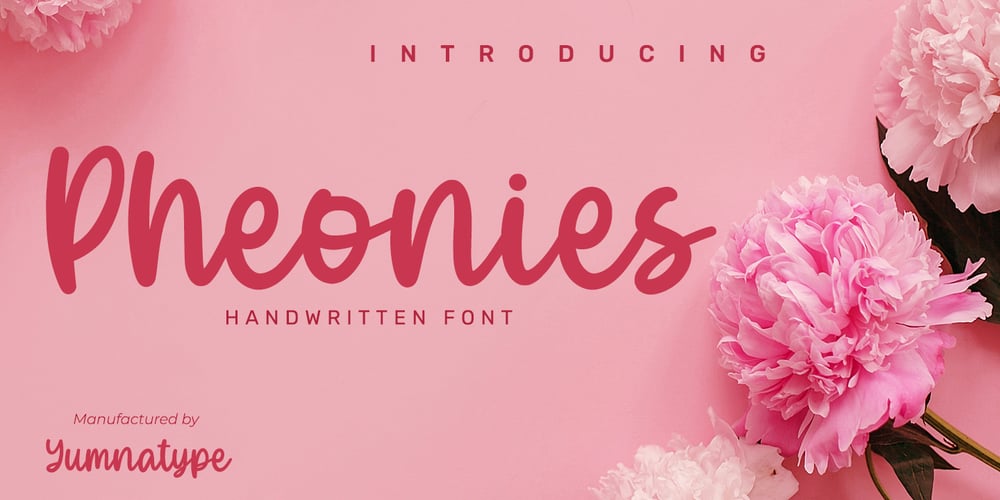
Pheonies Font Family was designed by Donis Miftahudin and published by Yumna Type. Pheonies contains 1 styles and family package options. Pheonies is a handwritten font with a natural and unique design will make your project more beautiful. The font is suitable for your branding project, printing, logos dan wedding.Included:Pheonies (OTF)Features: Beautiful Ligatures Alternates Multilingual Support PUA encoded Numeral and Punctuation by Yumnatype